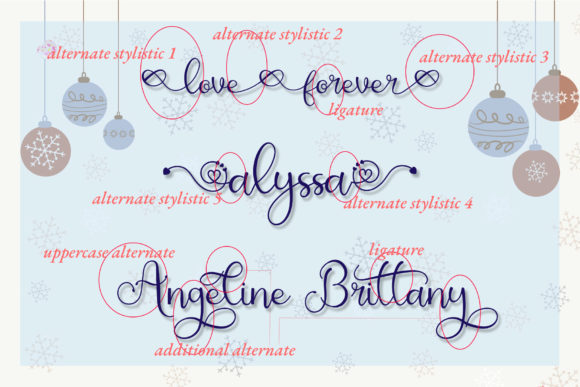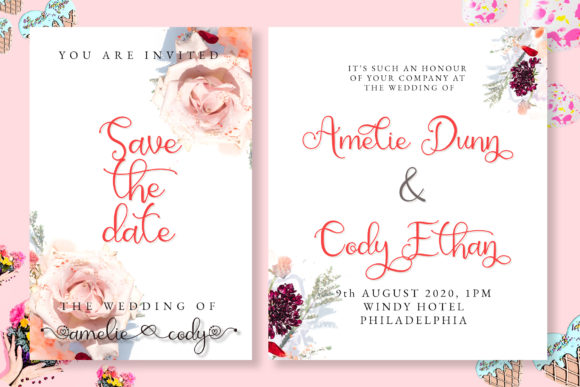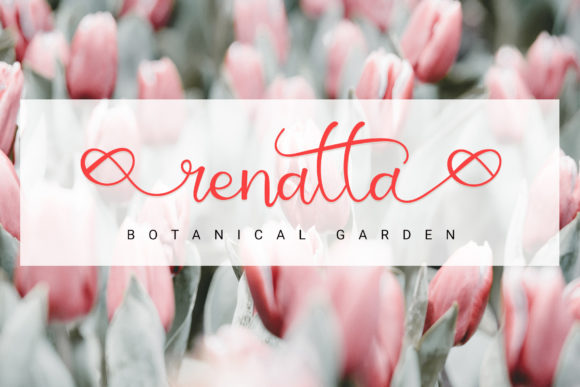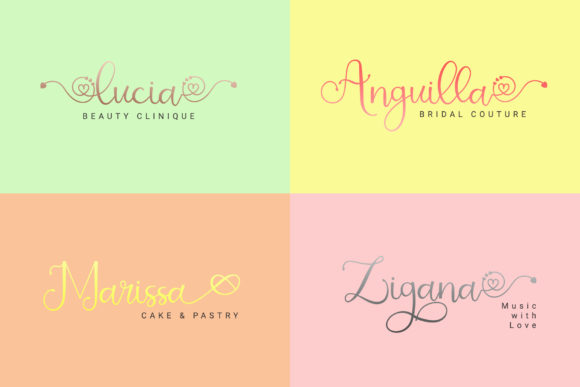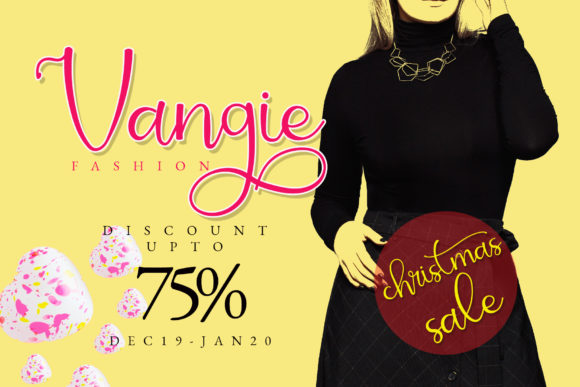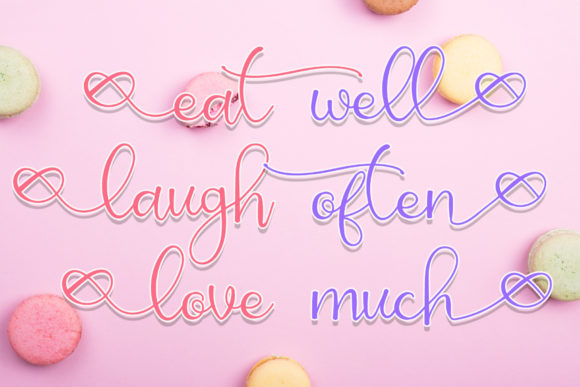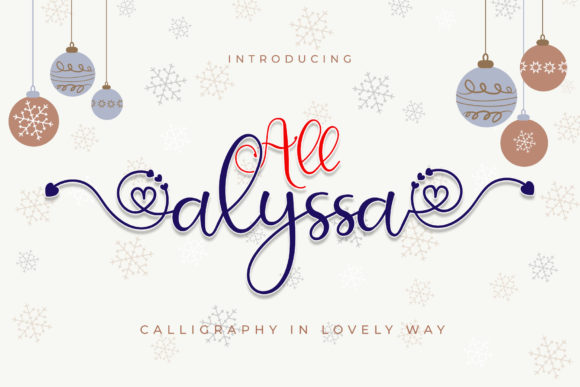
Introducing All Alyssa Font: Elegance and Modernity Combined
In the world of typography, fonts play a crucial role in conveying the tone and aesthetic of a project. For designers and crafters looking for a beautiful and elegant script font with a modern touch, All Alyssa Font is an excellent choice. This stunning font features PUA Encoded love-themed swashes that will make your project incredibly lovely and beautiful.
What Makes All Alyssa Font Stand Out?
All Alyssa Font is a unique and sophisticated script font that boasts a modern and elegant look. Its distinctive features include:
- Beautiful and Elegant Design: All Alyssa Font has a refined and luxurious feel to it, making it perfect for projects that require a touch of sophistication.
- Modern Touch: The font’s modern design ensures that it stays relevant and fresh, making it suitable for a wide range of projects, from wedding invitations to branding and advertising.
- PUA Encoded Love-Themed Swashes: The font comes with PUA Encoded love-themed swashes that add a romantic and whimsical touch to your project. These swashes can be used to create beautiful and unique designs that are sure to impress.
All Alyssa Font is an excellent choice for designers and crafters who want to create stunning and professional-looking projects. Whether you’re working on:
- Wedding Invitations: Create beautiful and romantic wedding invitations that set the tone for the big day.
- Branding and Advertising: Use All Alyssa Font to create eye-catching and memorable brand logos, advertisements, and marketing materials.
- Stationery and Gift Tags: Add a personal touch to your stationery, gift tags, and other paper crafts with this lovely font.
- Digital Designs: Use All Alyssa Font to create stunning digital designs, such as social media graphics, blog headers, and more.
Why Choose All Alyssa Font?
With so many fonts available, why choose All Alyssa Font? Here are just a few reasons:
- Unique and Exclusive Design: All Alyssa Font is a one-of-a-kind font that will make your project stand out from the crowd.
- PUA Encoded: The font’s PUA Encoded swashes make it easy to access and use the love-themed swashes, saving you time and effort.
Tips for Using All Alyssa Font
To get the most out of All Alyssa Font, here are a few tips:
- Experiment with Swashes: Don’t be afraid to try out different swashes and combinations to create unique and stunning designs.
- Pair with Other Fonts: Pair All Alyssa Font with other fonts to create interesting and dynamic designs.
- Use in Combination with Images: Use All Alyssa Font in combination with beautiful images to create visually stunning designs.
All Alyssa Font is a beautiful and elegant script font with a modern touch that is perfect for designers and crafters looking to create stunning and professional-looking projects. With its PUA Encoded love-themed swashes and ease of use, this font is sure to become a favorite in your collection. So why wait? Get All Alyssa Font today and start creating beautiful and unique designs that will leave a lasting impression!